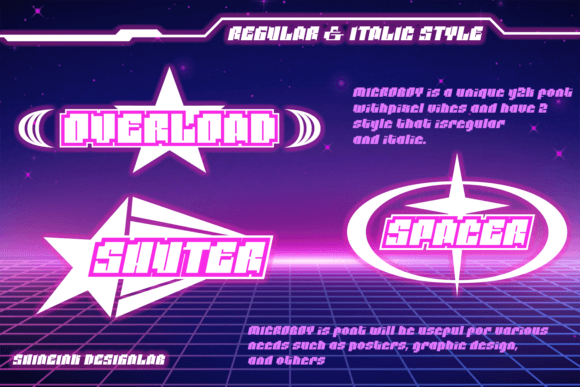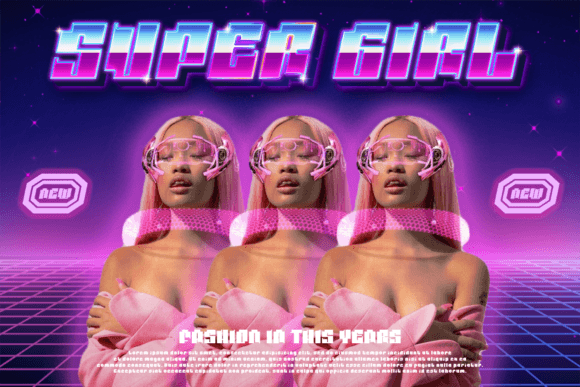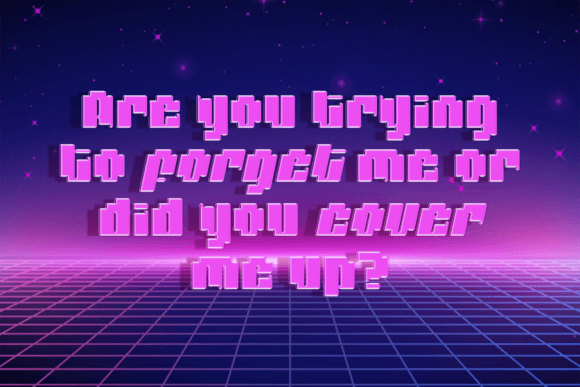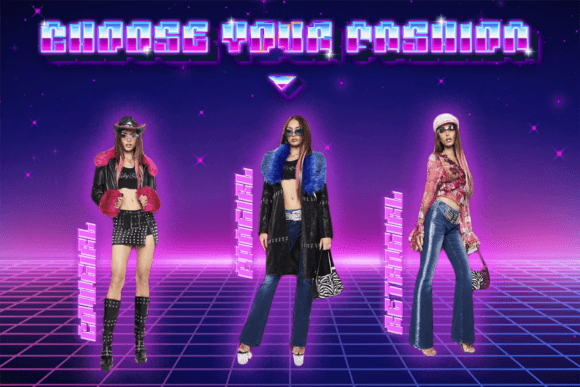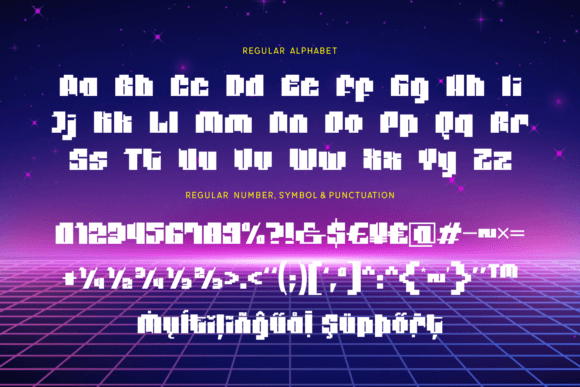
Introduction to Microboy Font
Imagine yourself in the middle of a nostalgic gaming session, surrounded by the sounds of pixelated beeps and the vibrant colors of a classic arcade game. The Microboy Font is the perfect addition to this immersive experience, transporting players to a bygone era of futuristic and pixelated design. This captivating font is a must-have for any designer looking to add a touch of retro-futurism to their creative project.
As a valuable design resource, the Microboy Font offers a unique blend of modern and vintage elements, making it an excellent choice for game developers and designers alike. With its sleek lines, bold shapes, and high-tech sophistication, this font is sure to elevate any project and provide a seamless gaming experience. Whether you’re working on a free download or a high-quality game, the Microboy Font is an essential addition to your design arsenal.
What makes the Microboy Font truly special is its versatility. From its transparent background to its vibrant colors, this font is designed to be used in a variety of creative ways, making it a must-have for designers looking to add a touch of personality to their projects.
Key Features of Microboy Font
- Unique, hand-drawn design perfect for creative projects requiring a high-quality, custom touch.
- Transparent background allows for easy layering and customization in your design projects.
- High-resolution design (up to 2048×2048 pixels) ensures crisp, clear typography in even the smallest design details.
- Available in multiple sizes and weights, making it an ideal design resource for a wide range of creative applications.
Honest Review: Microboy Font
As a designer, I’m always on the lookout for high-quality design resources that can elevate my creative projects. Recently, I stumbled upon the Microboy Font, and I’m excited to share my thoughts on this free download.
What works well: ✨ The Microboy Font has a unique and quirky style that’s perfect for adding some personality to your designs. The font is highly customizable, making it a great resource for designers who like to experiment with different typography styles. I also appreciate the transparent background, which makes it easy to use in various design scenarios.
Some limitations: ⚠️ While the Microboy Font is free to download, it’s not without its limitations. The font is not as versatile as some of the more popular fonts on the market, and it may not be the best choice for complex or professional projects. Additionally, some users may find the font’s quirky style to be too distracting or overwhelming.
Overall, I’d recommend the Microboy Font for designers who are looking for a unique and creative typography solution for their projects. While it may not be the best choice for every project, it’s a great resource to have in your design arsenal.
- Unique and quirky style
How to Use Microboy Font
The Microboy Font is a high-quality, free design resource ideal for creative projects. With its unique style and transparent background, it’s perfect for adding a touch of personality to your designs.
Tips for Getting the Most Out of Microboy Font
Experiment with different font sizes, colors, and combinations to create unique and eye-catching designs. Use the transparent background to create a sense of depth and layering.
The Microboy Font is perfect for creative projects such as: